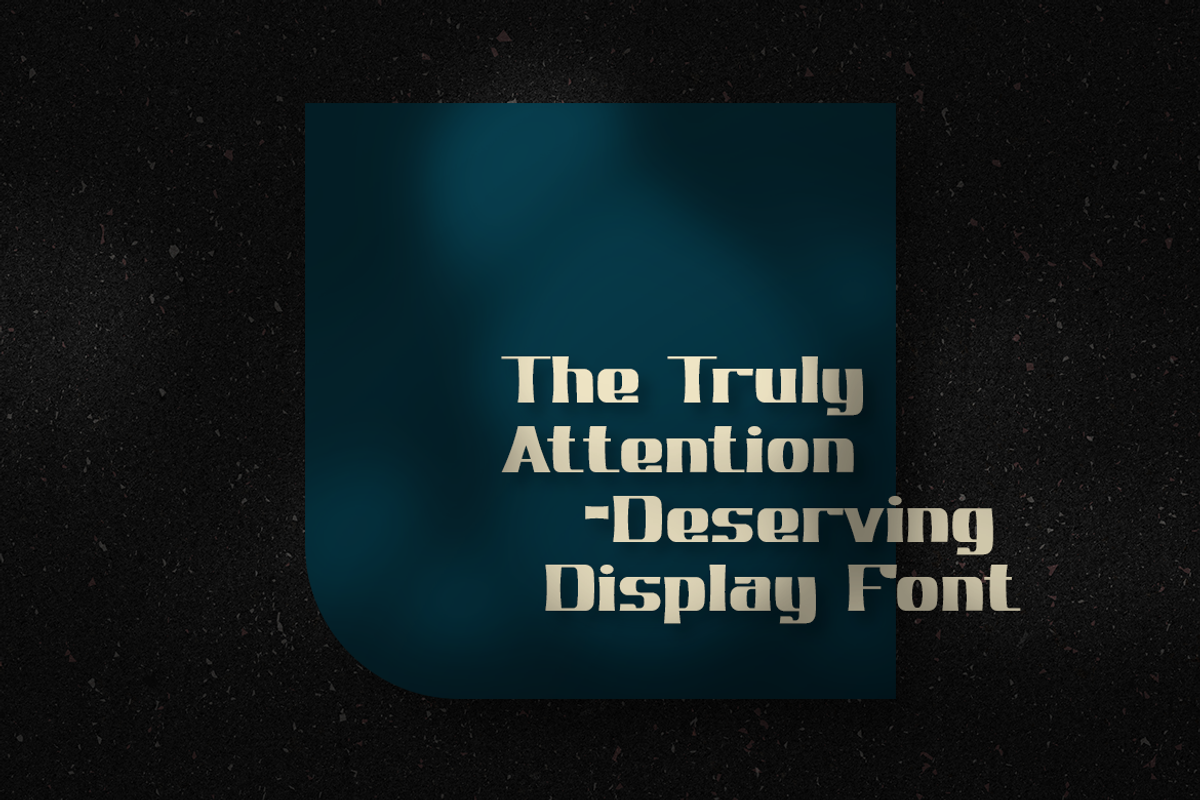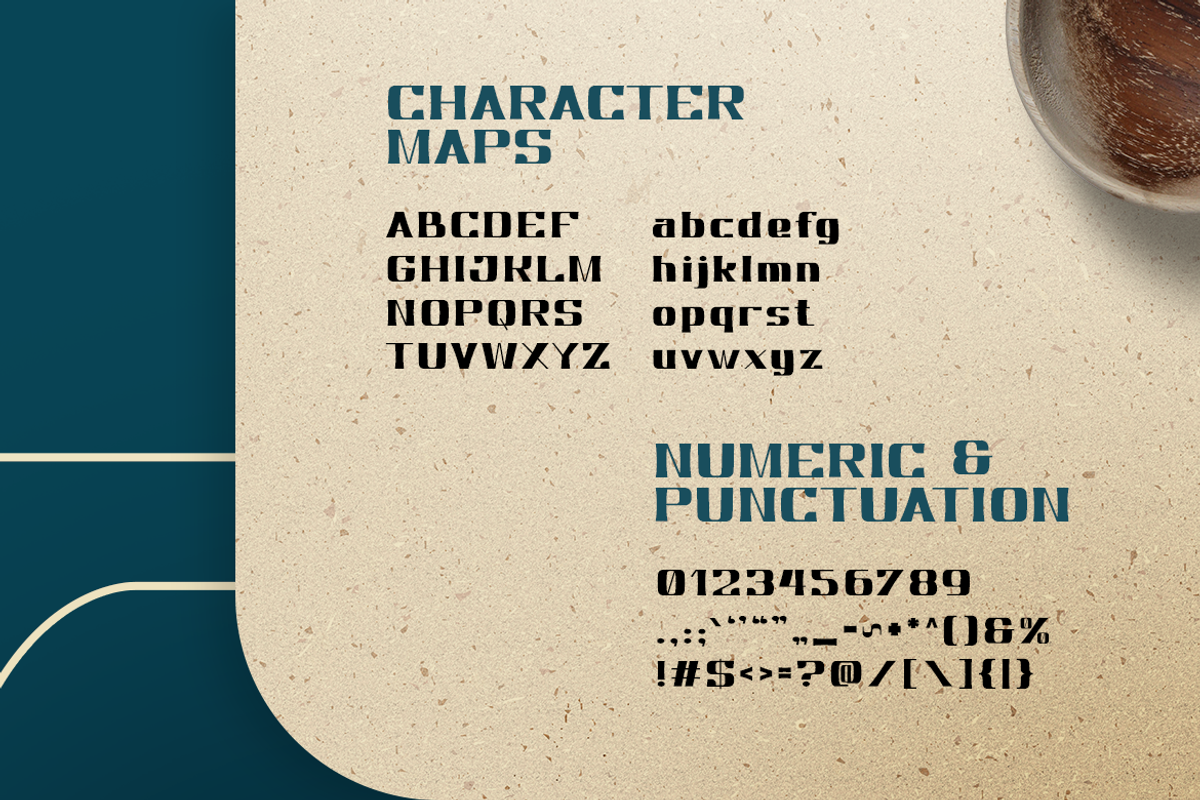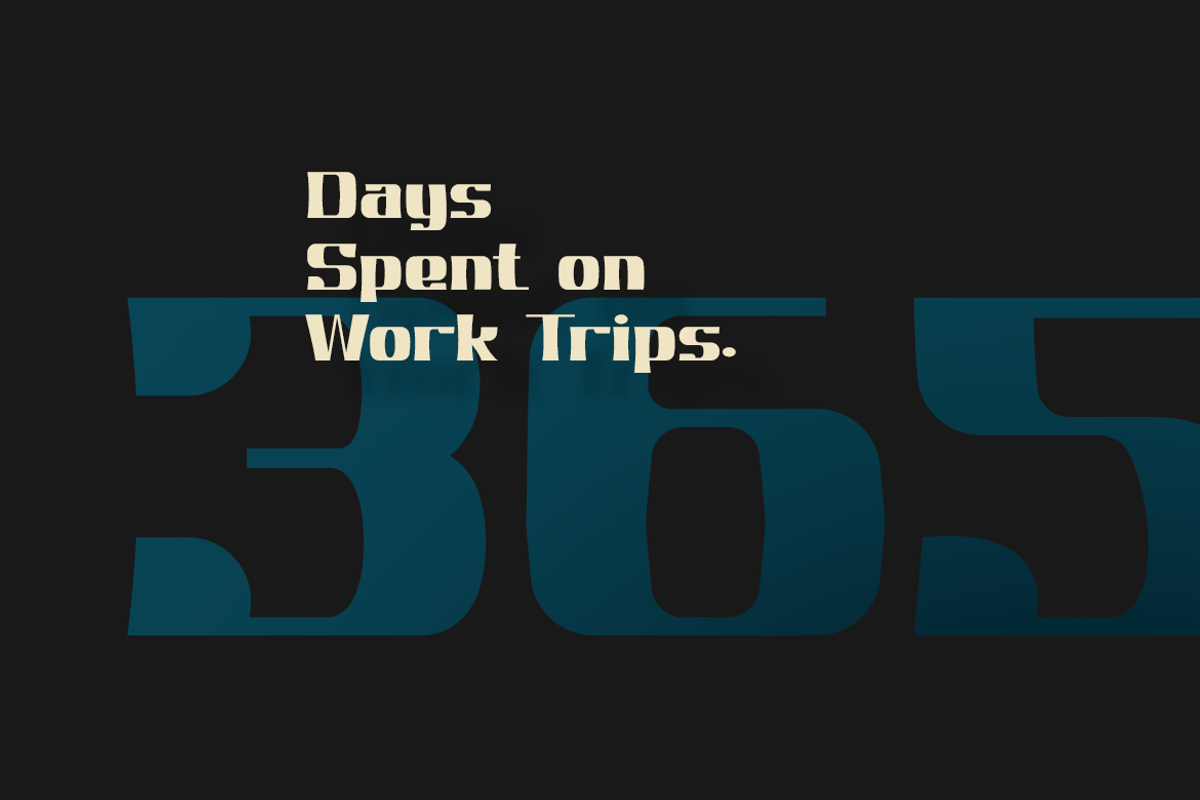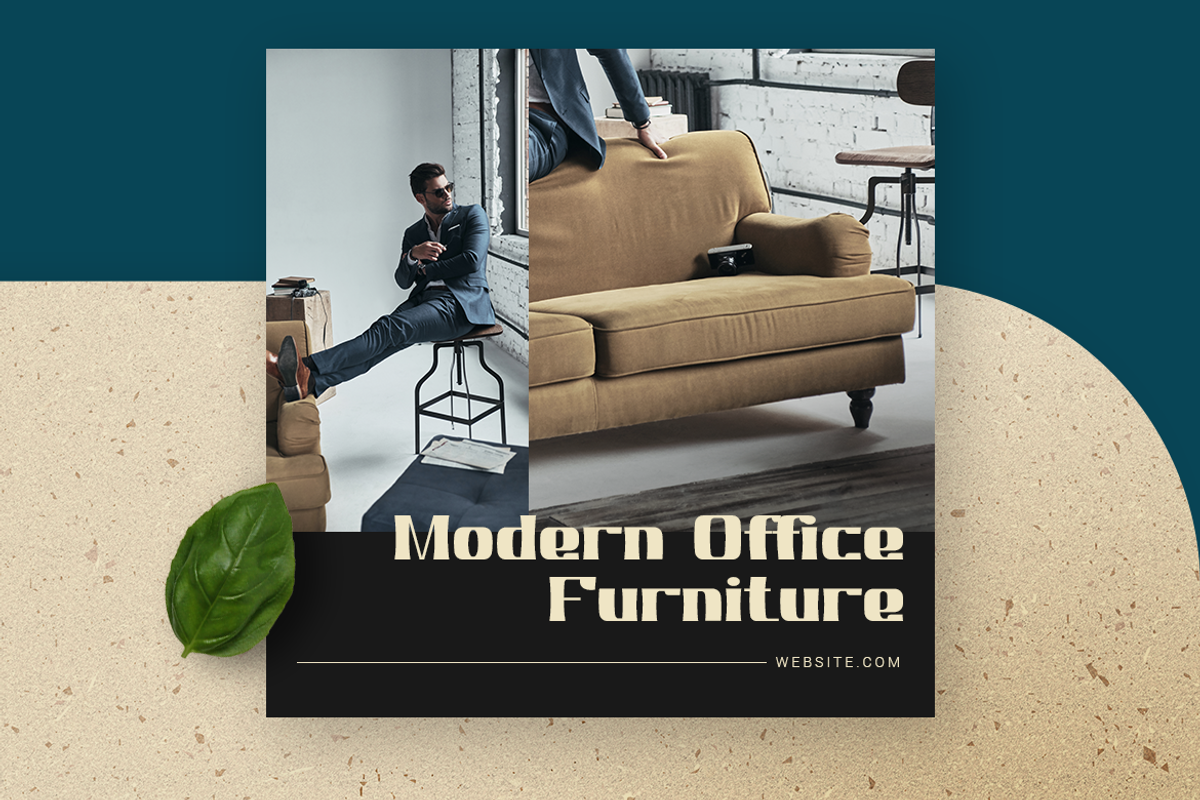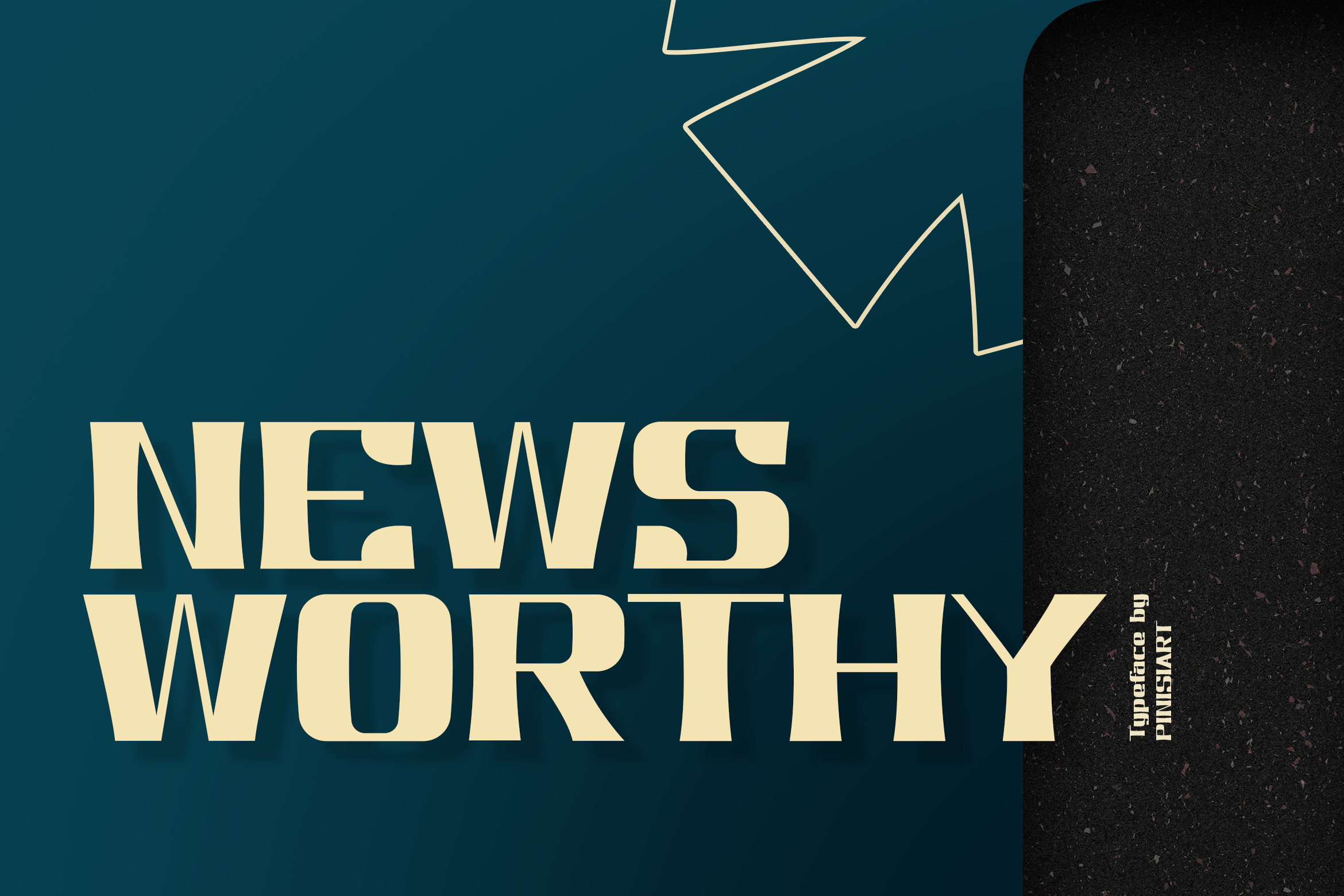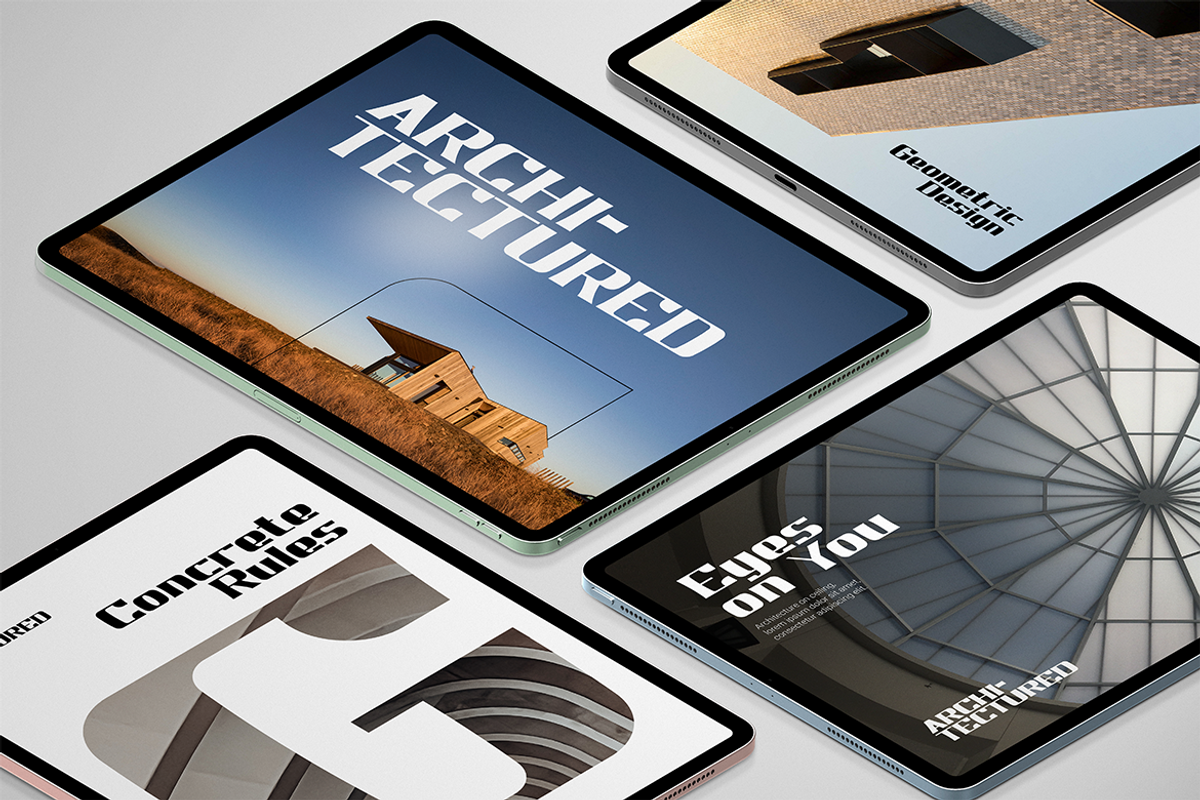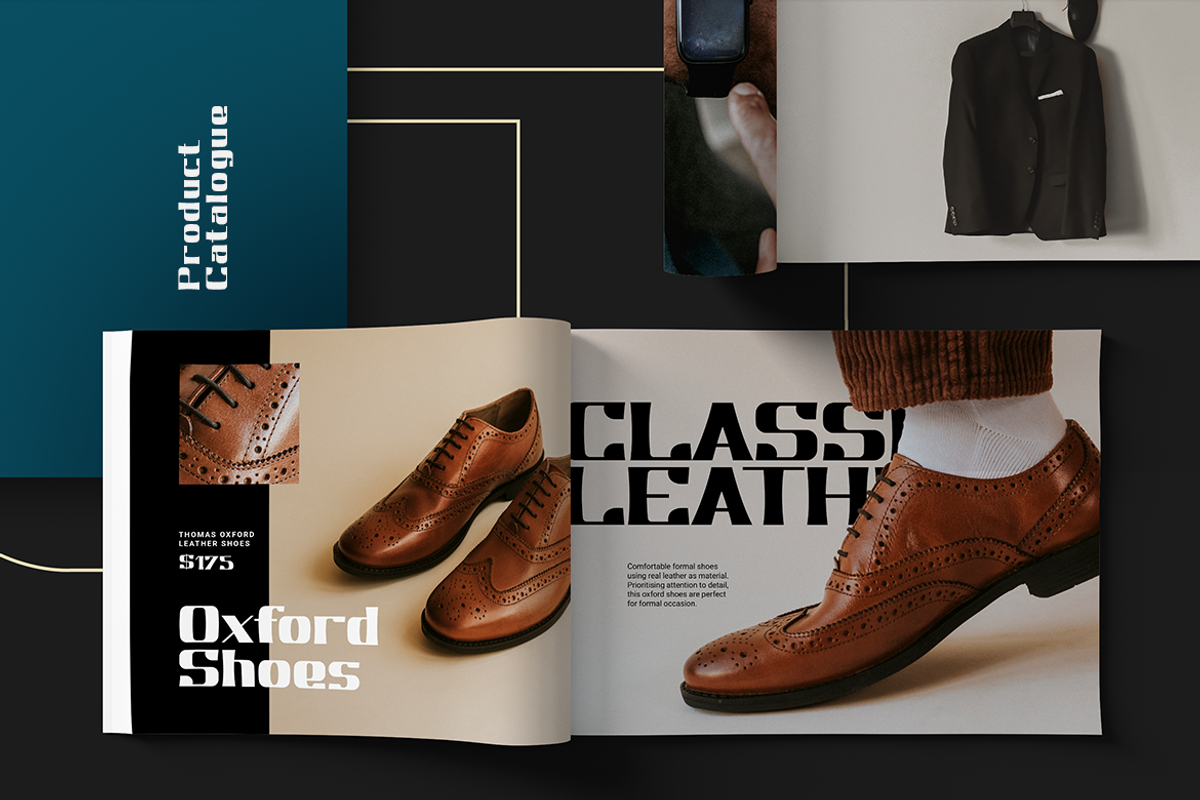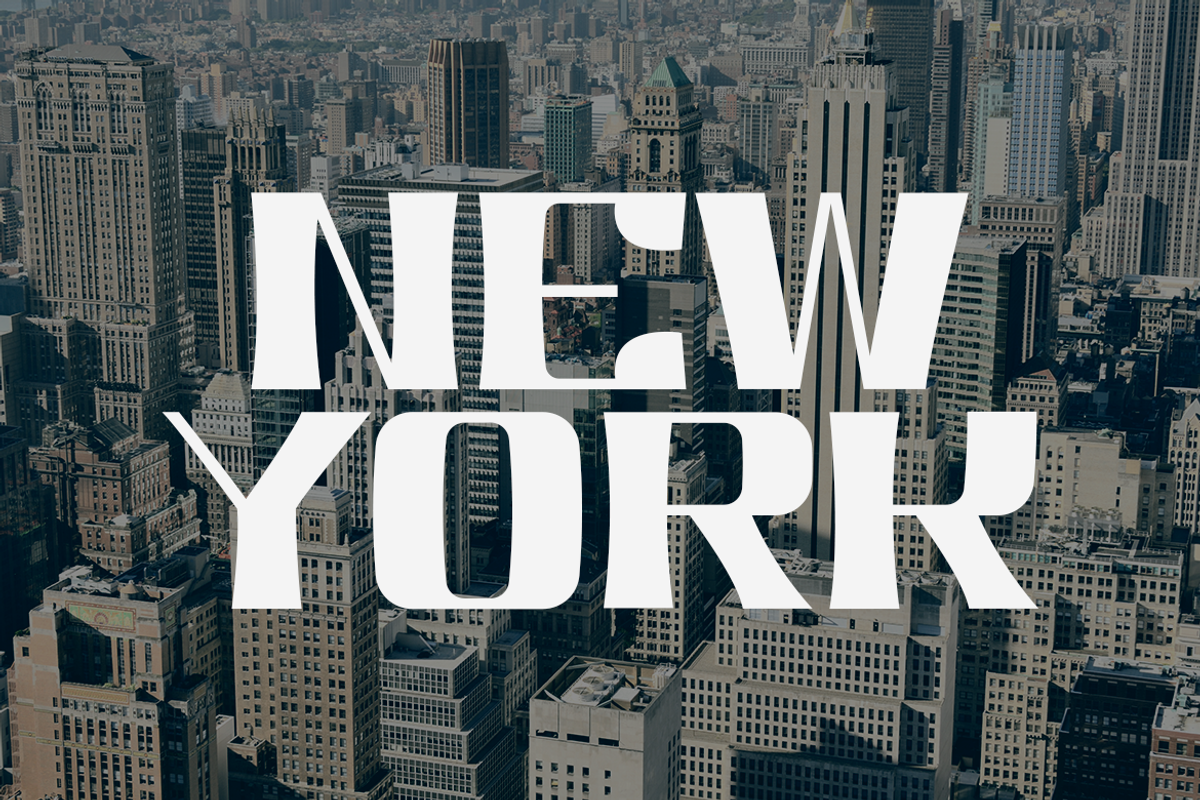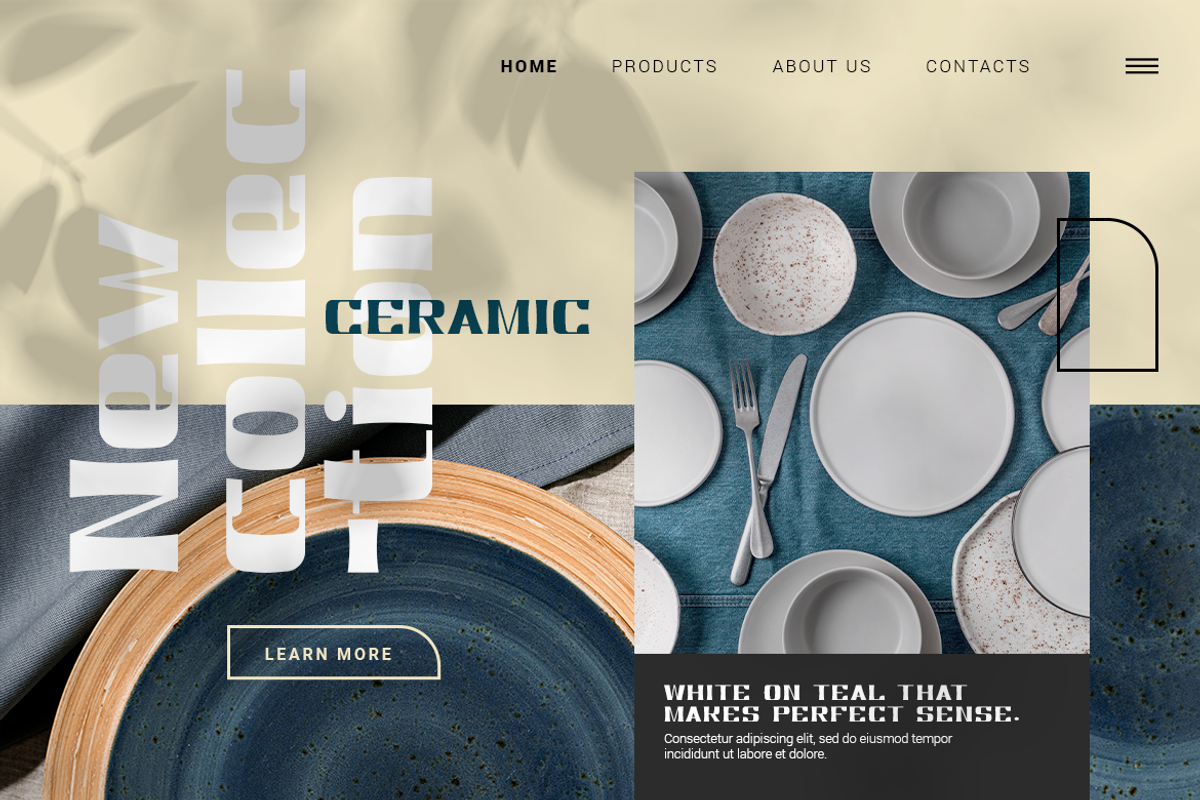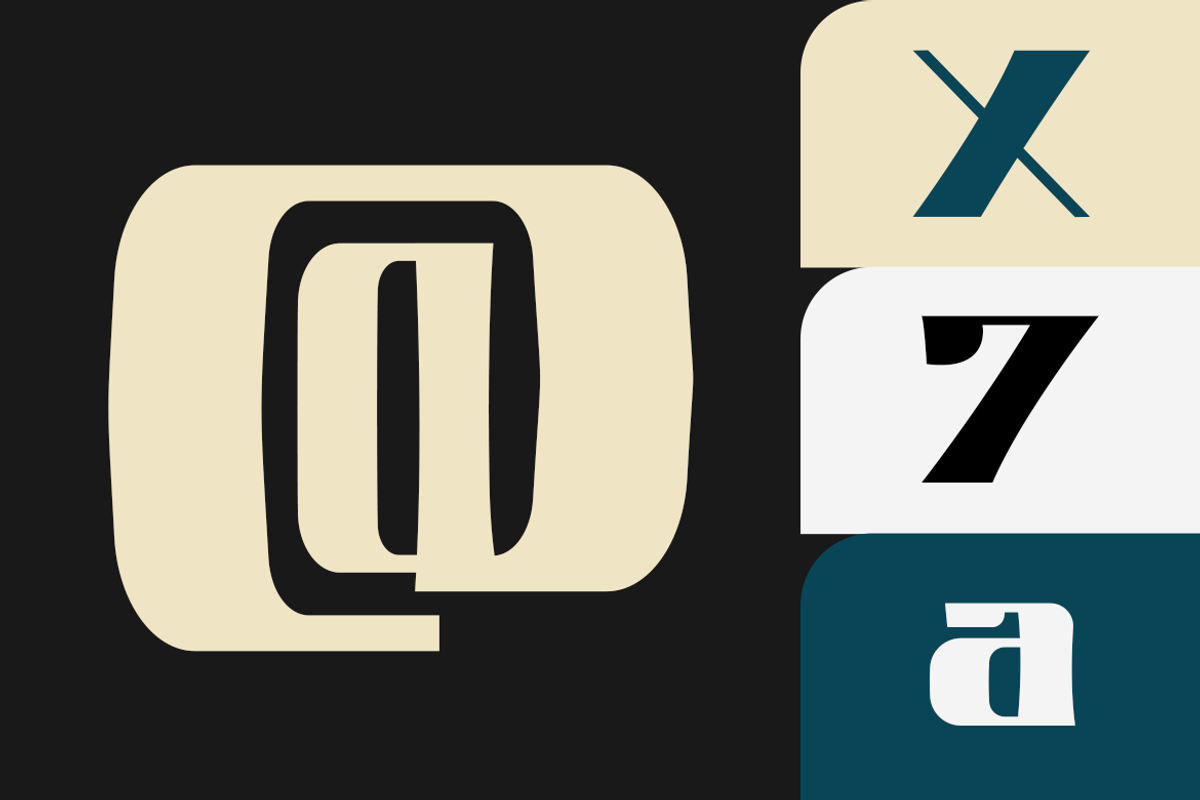
NEWSWORTHY – Classic Elegant Font
NEWSWORTHY – classic display font
Just like its name, NEWSWORTHY will make your writing hit the road for full-blown notification.
Suit perfectly for mature and elegant themes books market, economic posters, stationary, school supplies font, youtube covers, youtube thumbnails, social media page covers, and so on…